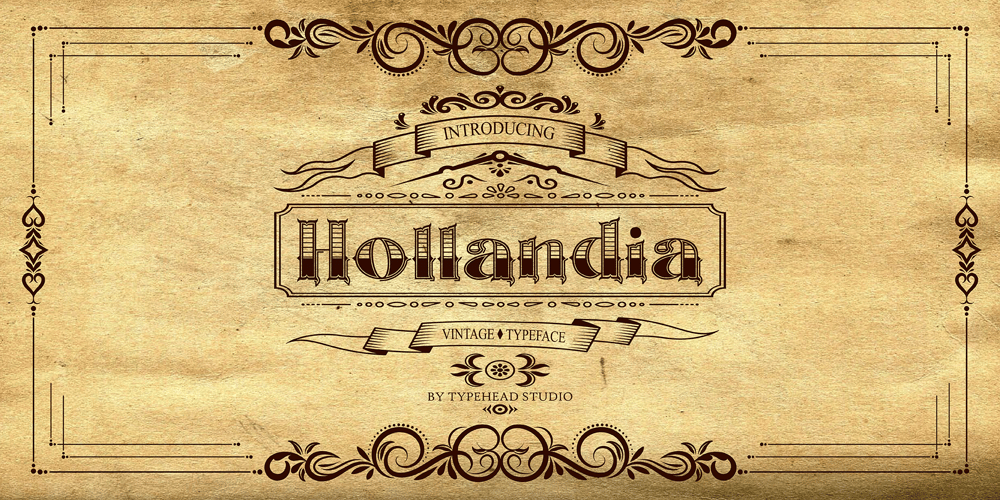
Hollandia Font Family was designed by Gatot Triardi Pramaji and published by Typehead Studio. Hollandia contains 1 styles and family package options. Introducing our new exploration Hollandia, another vintage-inspired font . Collected from many references such as vintage signage, logo, badges, and old fashioned graphics. Hollandia font made carefully crafted with a high ornamental taste.Hollandia is perfect for many display purposes. You can use this font for poster, label, logo, signboard, t-shirt, book cover, decoration, merchandise, and more.